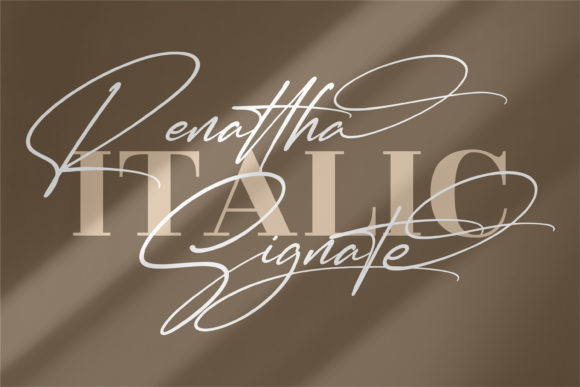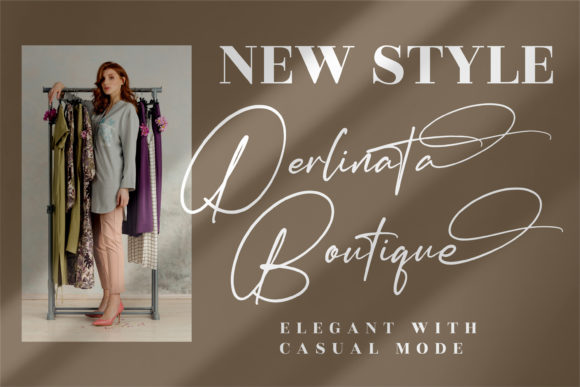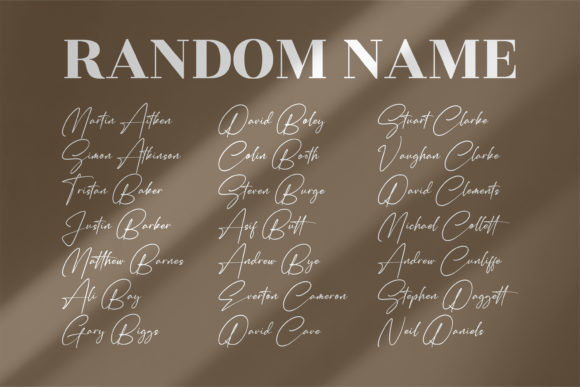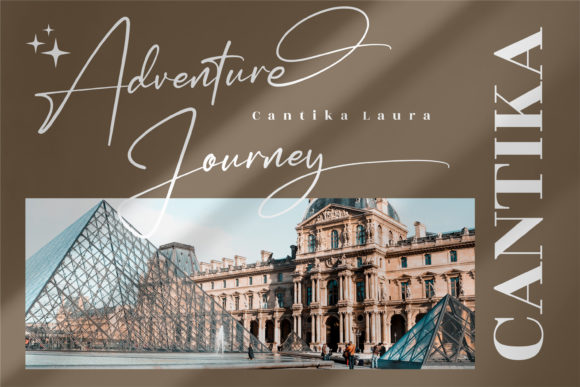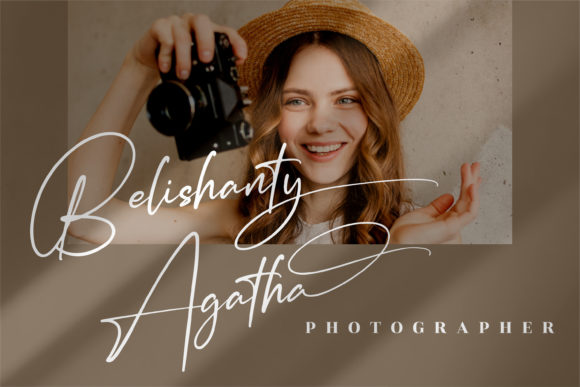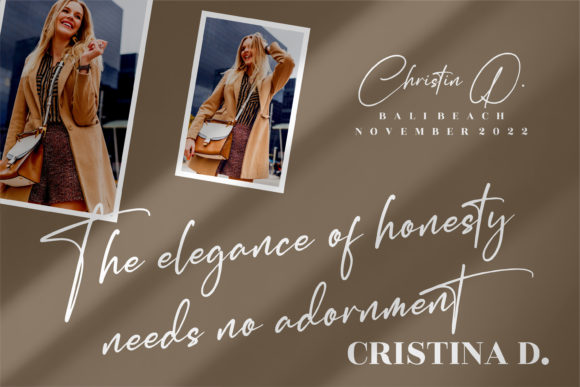
Introduction to Renattha Signate Font
Have you ever been in the midst of a creative project, staring at a blank page or screen, searching for the perfect font to bring your vision to life? For many designers, this is a common struggle. But what if you stumbled upon a font that not only met your expectations but exceeded them in every way? This is where the Renattha Signate Font comes in – a thin lettered and graceful script font that is sure to capture the hearts of designers and creatives alike.
With its ravishing style and versatility, the Renattha Signate Font is an ideal choice for a wide range of creative projects, from beautiful wedding invitations and stunning social media posts to gorgeous stationary art and more. Its PUA encoding also makes it easy to access all glyphs and swashes, giving you complete control over your design.
Key Features of Renattha Signate Font
- Unique, hand-drawn design with a creative and artistic feel, perfect for a variety of projects, from branding to editorial content.
- Comes with a transparent background, allowing for easy customization and integration with different design elements and backgrounds.
- High-resolution design, ideal for print and digital applications, including business cards, brochures, and website headers.
- Part of a larger font family, offering a range of styles and weights to suit various design needs and creative projects.
- Designed to be versatile and easy to use, making it an excellent choice for designers and artists working on a wide range of creative projects.
Honest Review: Renattha Signate Font
I recently came across the Renattha Signate Font while searching for a high-quality design resource for a creative project. After trying it out, I’m excited to share my honest review.
What works well: ✨ I was impressed by the font’s unique and elegant design, making it perfect for any project that requires a touch of sophistication. The font is available for free download, which is always a bonus. The transparent background option is also a great feature, allowing for seamless integration with any design.
Here are some of the font’s key features:
- Unique and elegant design
- High quality and crisp
However, there are a few limitations: ⚠️ The font is not suitable for large-scale use, as it may lose its quality when scaled up. Additionally, the font’s versatility is somewhat limited, making it better suited for specific design niches.
Overall, I’m impressed with the Renattha Signate Font and would highly recommend it for creative projects that require a touch of elegance. Its unique design and high quality make it a valuable design resource, and the free download option is a definite plus.
Experiment with different font sizes and styles to create visual interest. Use the font’s transparent background to create a sense of depth and dimension. Combine the font with other design elements to create a cohesive look.
The Renattha Signate Font is ideal for creative projects such as logos, business cards, and brochures. Its high quality and transparent background make it a popular choice for designers and artists.